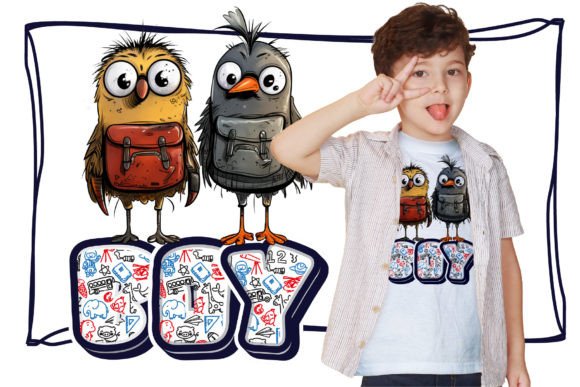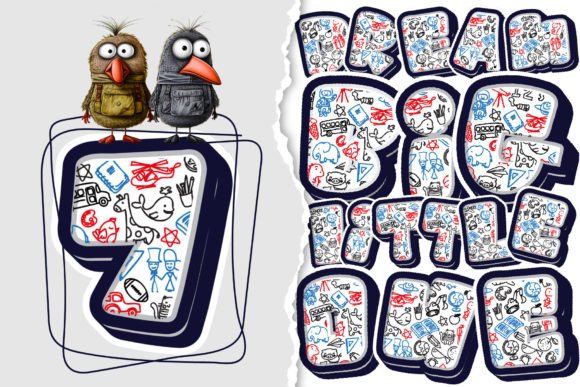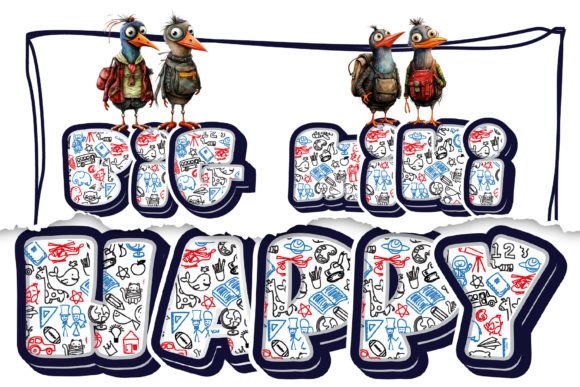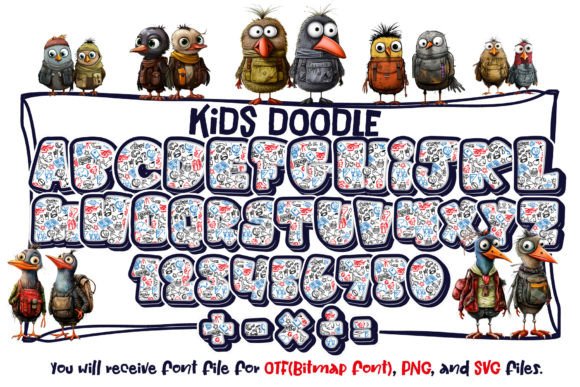
Unleash the Child Within: The Magic of Kids Doodle Font
Do you ever find yourself scribbling away with a pen, letting your imagination run wild and free? Maybe it’s a doodle in the margin of a notebook, a sketch in a sketchbook, or a quick message to a friend. Whatever it is, there’s something special about unleashing our creativity and letting our inner child shine. For designers looking to bring a touch of whimsy to their projects, the Kids Doodle Font is the perfect tool to tap into that sense of wonder and play.
With its bold lines and delightful embellishments, the Kids Doodle Font is a charming addition to any design. Whether you’re creating a birthday invitation, a children’s book, or simply need a font that screams “fun,” this font is sure to bring a smile to your face and a touch of magic to your words. As a valuable resource for designers, the Kids Doodle Font offers a unique way to add personality and character to any project.
- Unique Hand-Drawn Style: The Kids Doodle Font features a playful, hand-drawn design that is perfect for creating a fun and childlike atmosphere in your designs.
- Character Set: Includes a comprehensive set of uppercase and lowercase letters, numerals, punctuation marks, and special characters, making it suitable for a variety of design applications.
- Color and Style Options: Available in a range of colors and styles, including bold, italic, and outline versions, giving you the freedom to customize the font to suit your design needs.
Designer Review: Kids Doodle Font
Overall, I think the Kids Doodle Font is a fun and playful typeface that’s perfect for creating kid-friendly content. ✨ I love the quirky and whimsical feel it gives off, and it’s great for adding a touch of personality to your designs.
- ✨ Unique and expressive character styles that really bring a design to life
- ✨ Wide range of languages supported, making it a great option for international designs
- ✨ Great for creating engaging and interactive content, such as children’s books and educational materials
- ⚠️ Limited font sizes available, which may not be ideal for larger or smaller designs
- ⚠️ Some characters may not be as legible at smaller font sizes, which could impact readability
- ⚠️ May not be suitable for formal or professional designs, as it’s quite playful and informal
In terms of overall impression, I think the Kids Doodle Font is a great option for designers looking to add some personality to their kid-friendly content. While it may have some limitations, its unique style and wide range of supported languages make it a great choice for the right project.
Getting the Most Out of the Kids Doodle Font
To get the most out of the Kids Doodle Font, try combining it with other fun and playful elements, such as colorful illustrations and whimsical graphics. Experiment with different font sizes and styles to add visual interest to your designs. The Kids Doodle Font is perfect for creating fun and engaging content for kids, such as children’s books, party invitations, and educational materials.
The Kids Doodle Font is commonly used for creating fun and playful designs for kids, such as:
– Children’s books and educational materials
– Party invitations and decorations
– Kids’ clothing and accessories
– Online content and social media graphics
Q: Can I customize the Kids Doodle Font to fit my design needs?
Yes, the Kids Doodle Font is fully editable in popular design software, including Adobe Illustrator and Photoshop. You can customize the font to fit your design needs, including changing the color, size, and style of the doodle elements and ornaments.